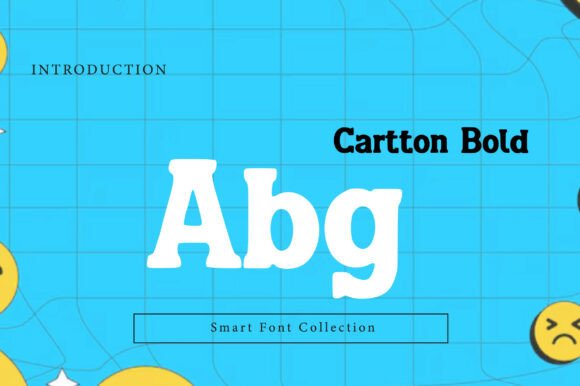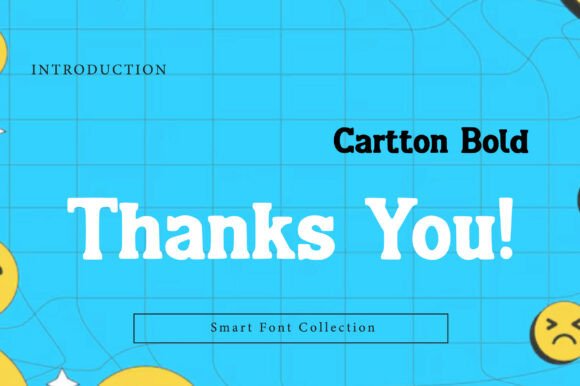
Introduction to Cartton Bold Font
Cartton Bold is a bold, chunky, and playful cartoon-style display font designed to bring fun, energy, and personality to your typography.
With its thick strokes, rounded curves, and classic cartoon-inspired structure, this font is perfect for designs that need to feel friendly, loud, and eye-catching Built for strong readability and high-impact visual appeal, Cartton Bold works beautifully for headlines, logos, titles, and playful branding.
Key Features of Cartton Bold Font